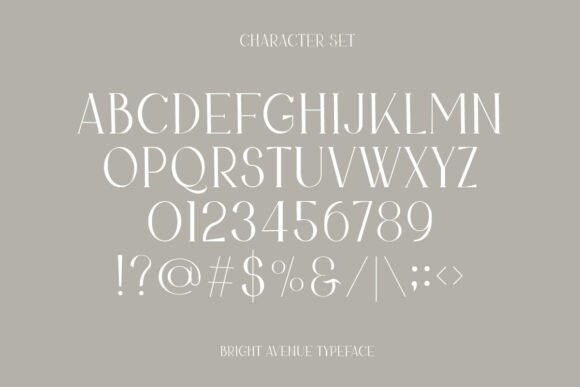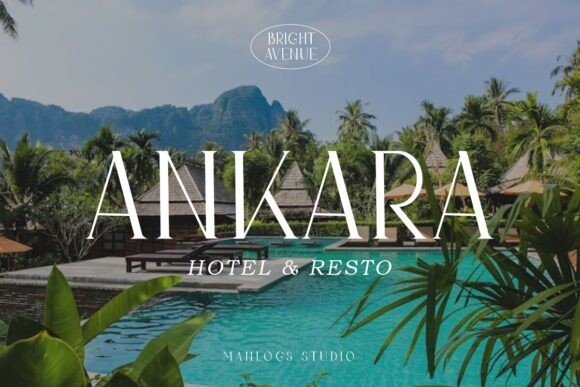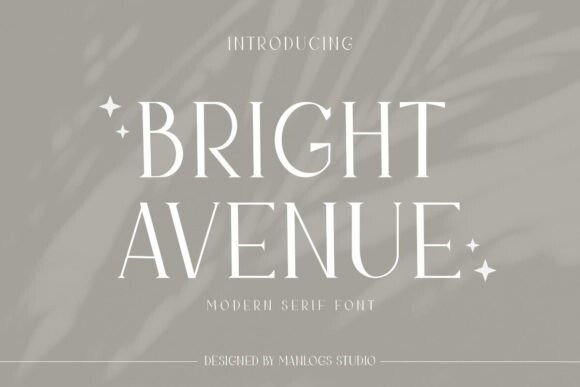
Bright Avenue Font
Designer: Manlogs Studio
Bright Avenue Font is a elegant serif combined with a classy and modern. This type of font is very suitable for your various needs such as branding projects, logos, wedding designs, social media posts, advertisements, product packaging, product designs, labels, magazine cover, watermarks, invitations, layout design, and more, this font giving any project an extra touch of class.
Bright Avenue
Bright Avenue Italic